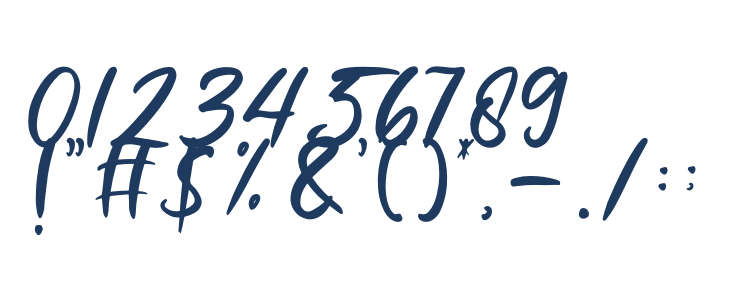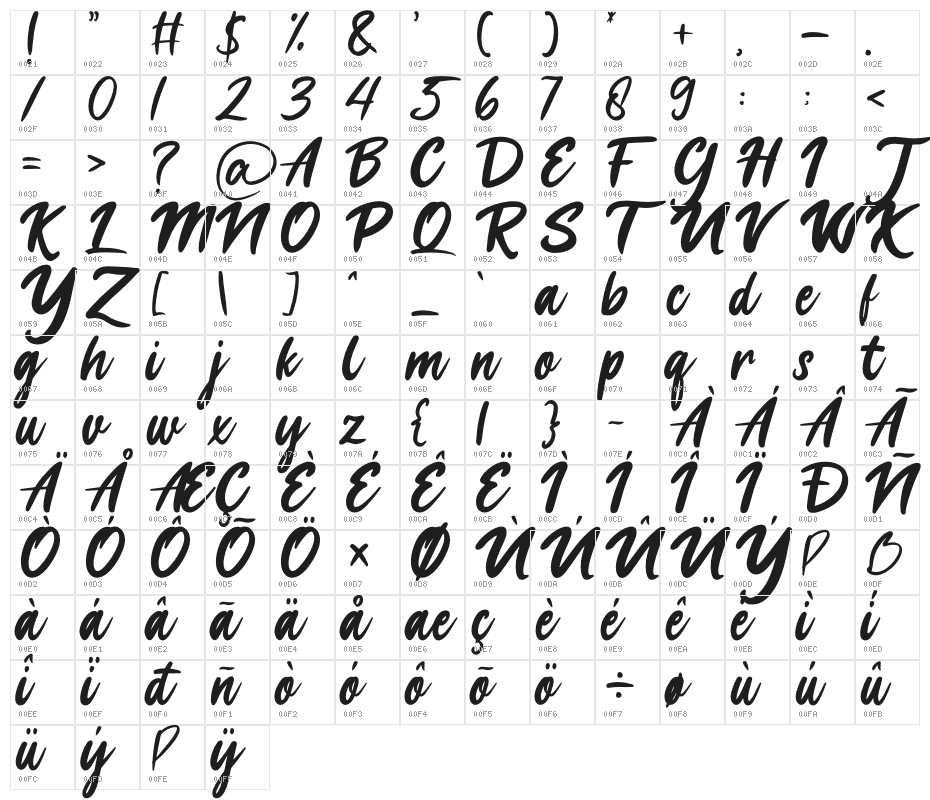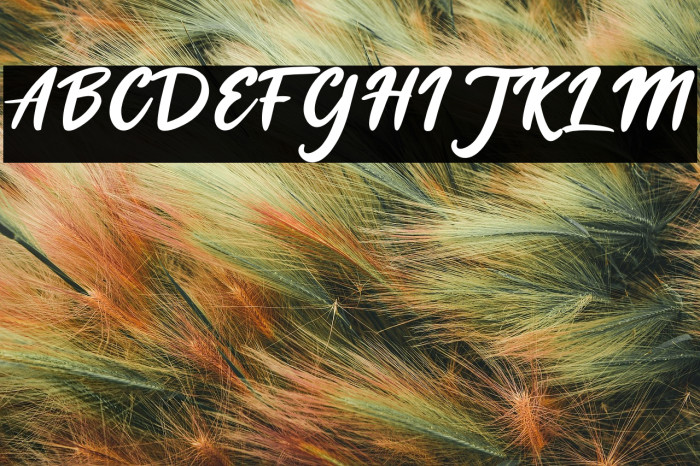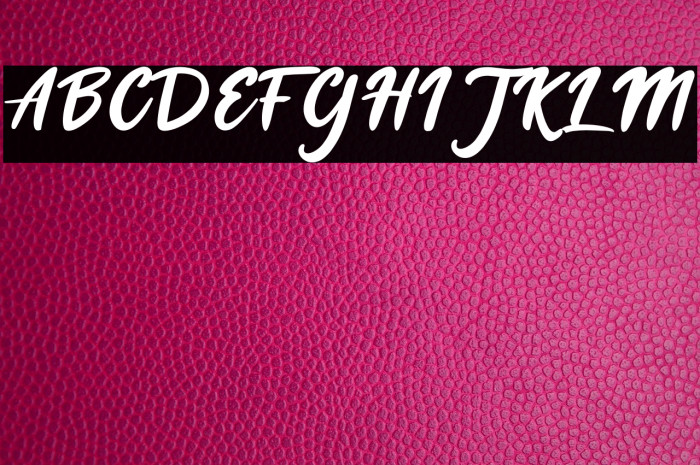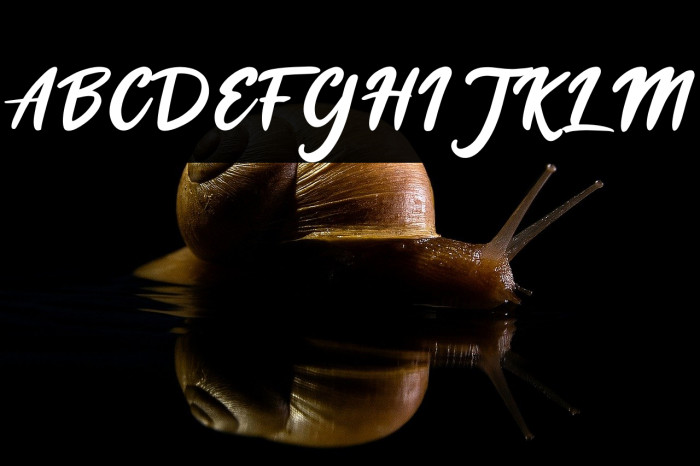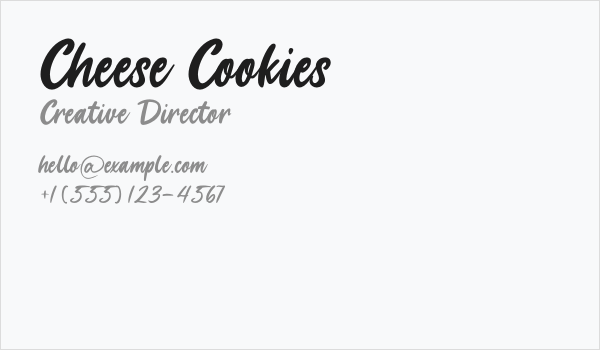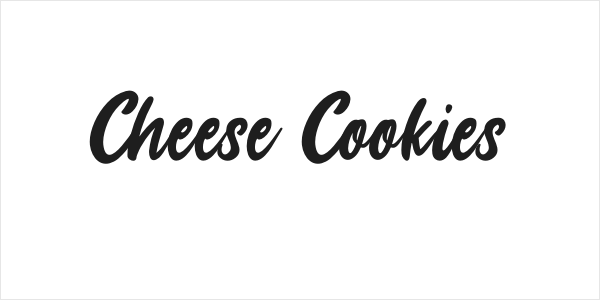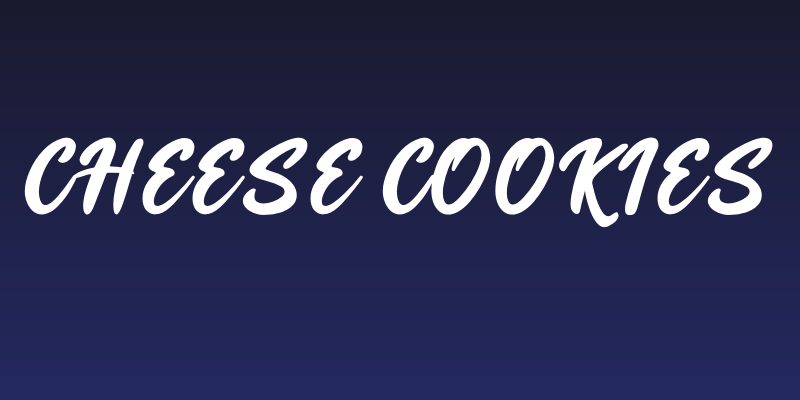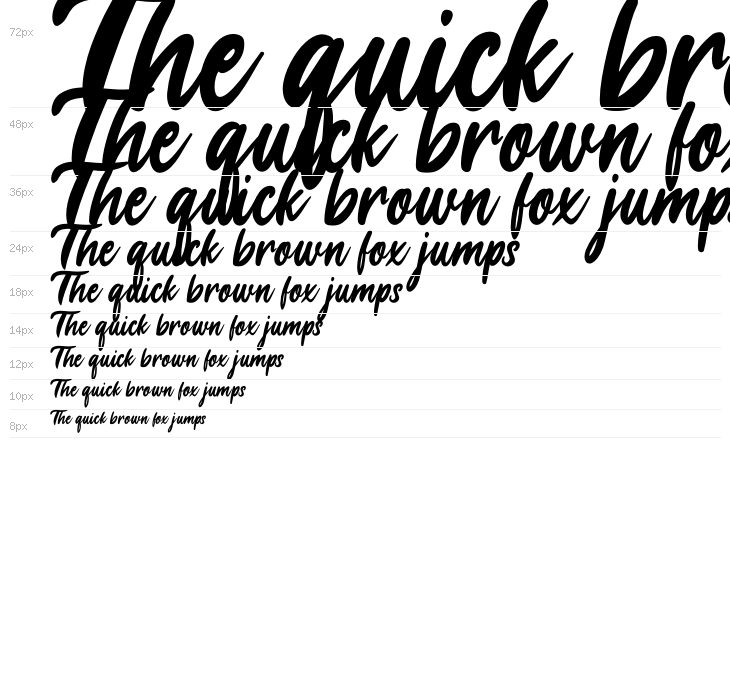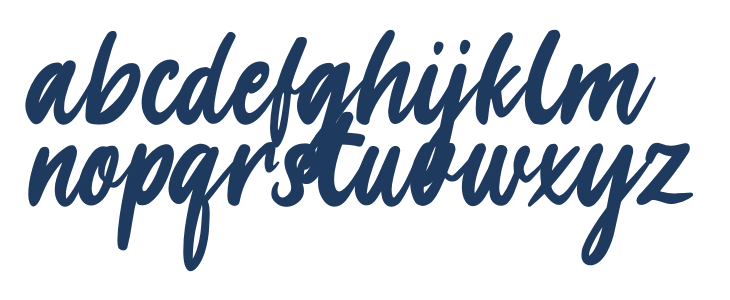
Cheese Cookies Font
Cheese Cookies Description
This font exudes a lively and energetic vibe with its bold, cursive style. The letters are connected in a fluid manner, giving it a handwritten appearance. The strokes are thick and consistent, providing a strong presence on the page. The uppercase letters are slightly larger and more pronounced, while the lowercase letters maintain a smooth flow. Numbers and special characters are designed to match the overall aesthetic, ensuring a cohesive look. This font is ideal for projects that require a personal touch or a sense of dynamism.